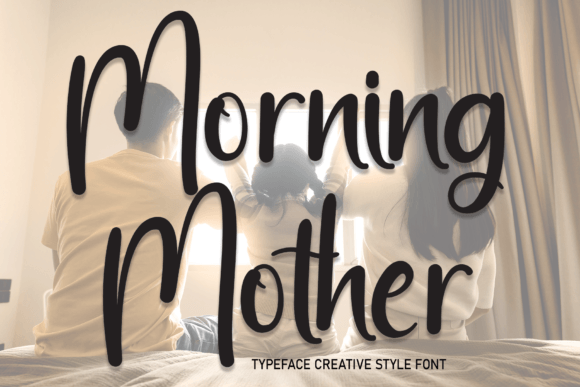
Journey into the world of handwritten elegance with Morning Mother Font, a creation of William Jhordy, where simplicity and friendliness dance in perfect harmony. Crafted with the utmost care, this script font is a testament to the beauty of imperfection, inviting you to embrace the charm of handwritten strokes and add a touch of warmth to your digital creations.
Let Morning Mother Font take you on a nostalgic trip, evoking memories of handwritten letters, heartfelt notes, and cherished moments shared with loved ones. Experience the joy of using a font that feels personal and inviting, drawing your audience into your visual stories with its captivating charm.
Whether you're a seasoned designer or just starting out, Morning Mother Font is your perfect companion. Its versatility shines through in various applications, from crafting captivating logos and headers to designing eye-catching social media posts and presentations. Unleash your creativity and let the flowing strokes of Morning Mother Font add a touch of elegance to your digital projects.
With Morning Mother Font, you'll discover a world of endless possibilities. It's the perfect choice for creating stunning greeting cards that express your heartfelt sentiments with a personal touch. Whether it's a birthday wish, a heartfelt thank you, or a simple hello, your words will come alive with the charm of Morning Mother Font, leaving a lasting impression on the recipient's heart.
But Morning Mother Font's magic doesn't stop there. Its versatility extends to digital design, where it effortlessly elevates the aesthetics of websites and apps. The font's friendly and approachable nature makes it ideal for user interfaces, adding a touch of warmth and inviting users to engage with your content.
Step into the world of Morning Mother Font today and unlock the power of handwritten elegance. Let its charm captivate your audience, leaving them with a lasting impression that speaks volumes about your attention to detail and design prowess. Experience the joy of using a font that feels like a warm embrace, adding a touch of personality to your every creation.